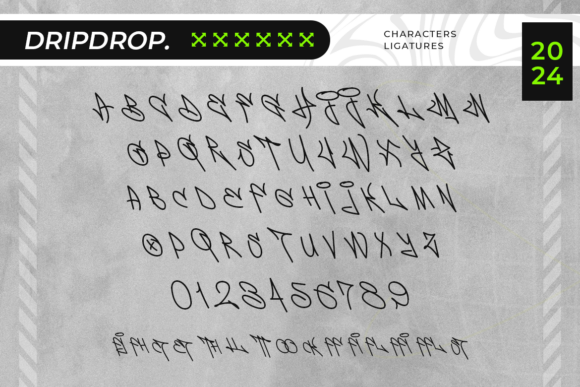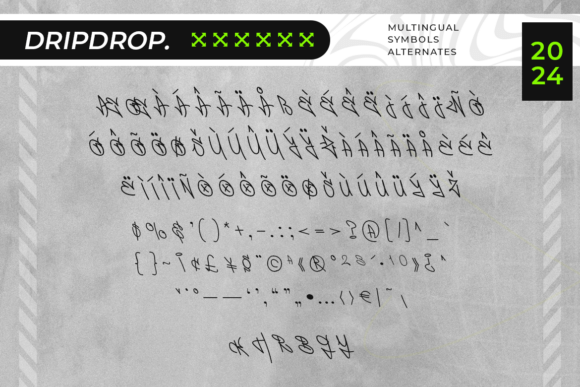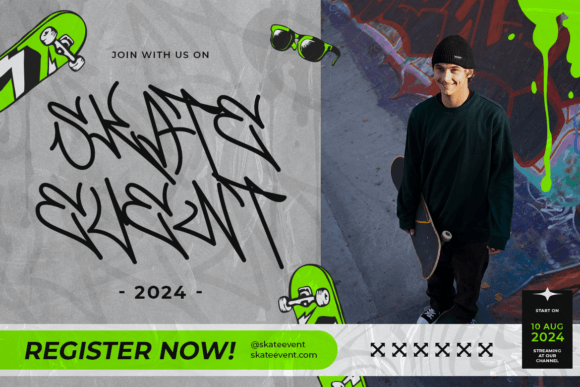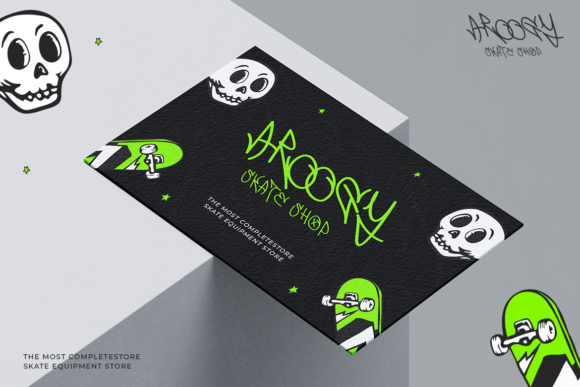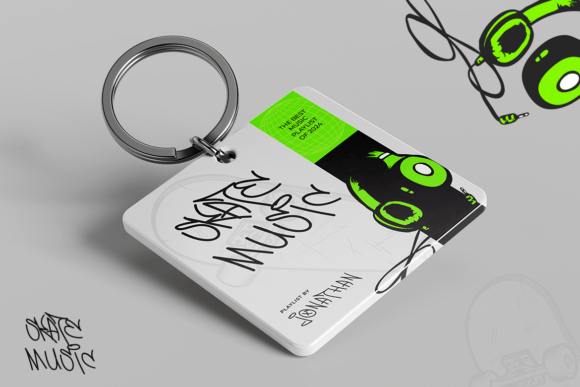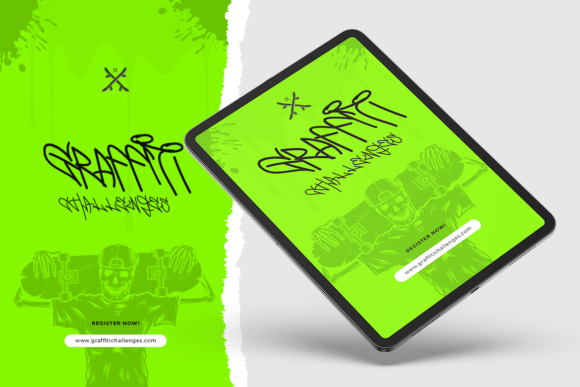
Introduction to Drip Drop Font
Introducing Drip Drop, a heavy-hitting graffiti font embodying the untamed spirit and creative brilliance of streetside murals.
Mimicking the splash of paint against the wall, Drip Drop’s letterforms dynamically embody the edginess that urban art represents Seamlessly infuse the genuine flavor of street culture into your creative undertakings—be it posters, album art, streetwear labels or event leaflets—for authenticity that echoes in every curve and pixel.
Key Features of Drip Drop Font